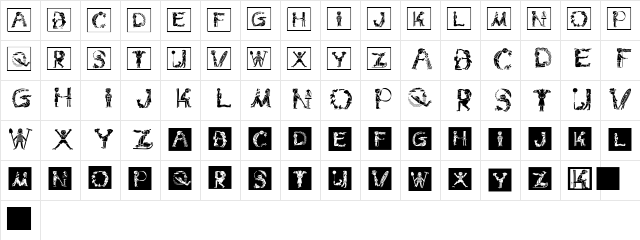
ChildrensAlphabet Regular
Design Context for ChildrensAlphabet Typeface
ChildrensAlphabet trades formality for fun, with bouncy, characterful letterforms that bring warmth and energy to any project.
Font Pairing: Pairs well with a rounded or humanist sans for body copy, maintaining the friendly tone without relying on ChildrensAlphabet to carry extended reading.
Pro Tip: Use ChildrensAlphabet at larger display sizes where its expressive character can land. Pair with a clean, simple sans for body copy to maintain readability.